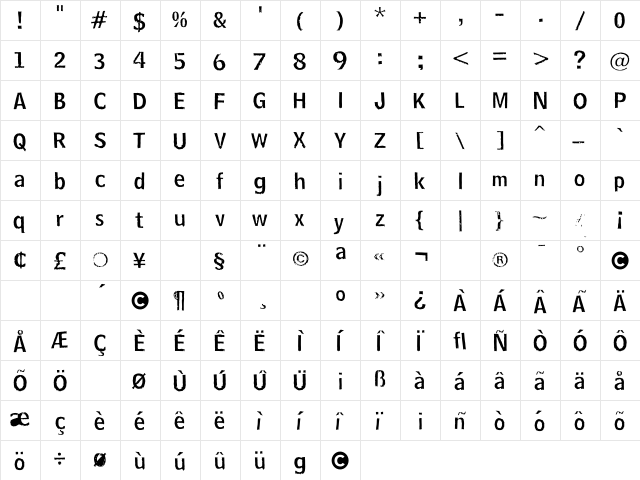
Hoosker Dont
Design Context for Hoosker Typeface
Hoosker takes a measured approach to typography — its balanced proportions and neutral character make it a reliable workhorse for both digital and print work.
Pro Tip: Use Hoosker in both headline and body roles to test its range before committing to a single application.